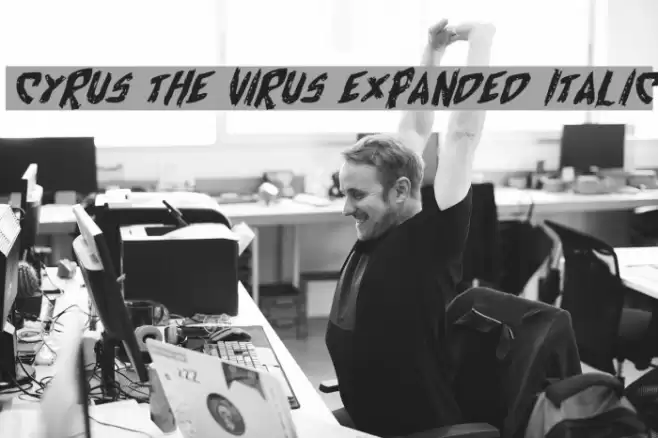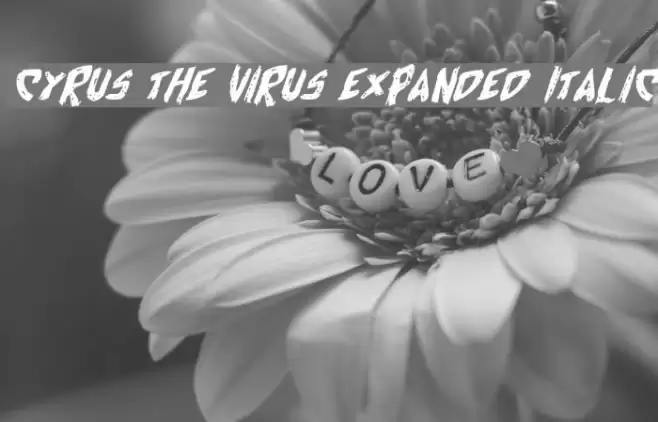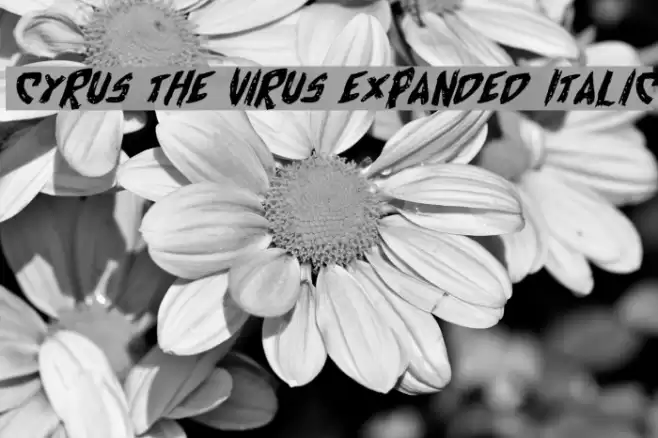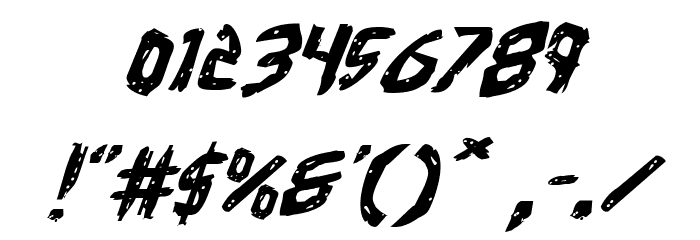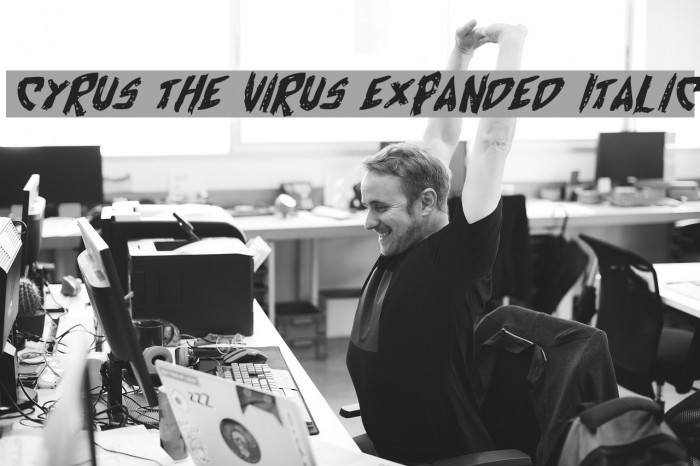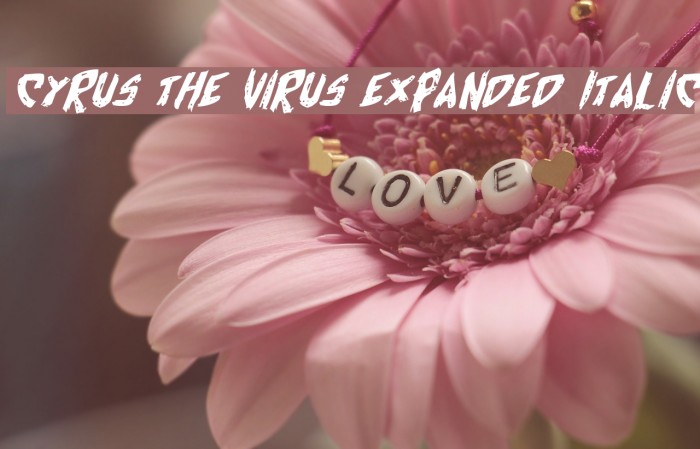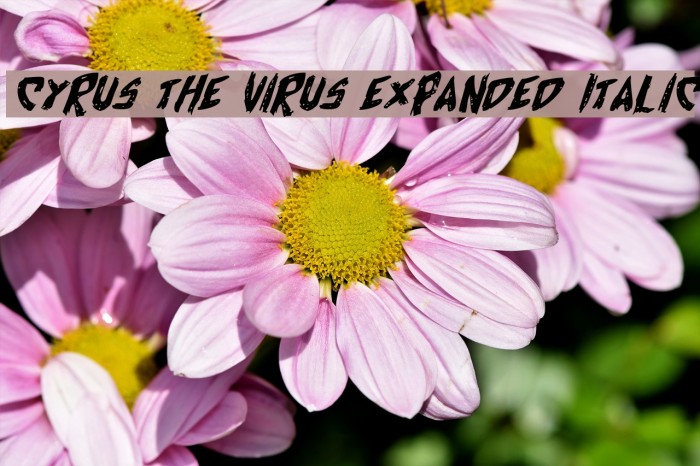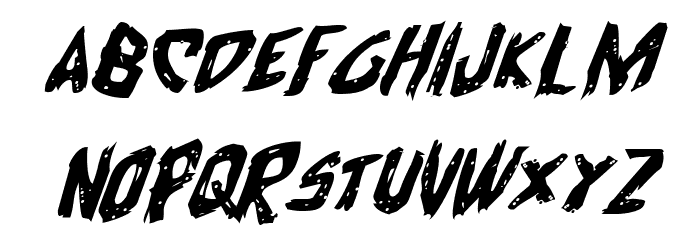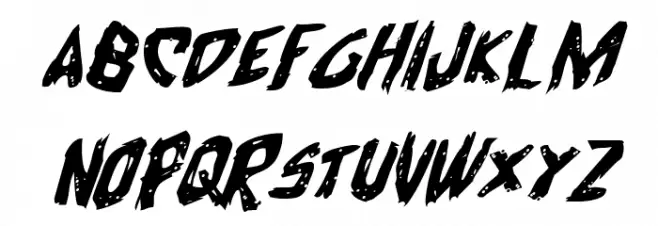
Cyrus the Virus Expanded Italic Font
Cyrus the Virus Expanded Italic Description
This font features a bold and dynamic style with an expanded and italicized appearance. The characters are designed with a rough, textured edge, giving them a distressed and energetic look. The uppercase and lowercase letters maintain a consistent style, with sharp angles and a slightly slanted orientation that enhances the italic effect. The numbers and special characters follow the same design principles, ensuring uniformity across the entire character set. This font's unique aesthetic makes it stand out, capturing attention with its bold strokes and artistic flair.
A bold, textured, expanded italic font with a dynamic and distressed style from Uncategorized fonts.
- Proposed Projects: Ideal for projects that require a bold and edgy look, such as music album covers, posters, branding for extreme sports, or any creative design that seeks to convey energy and movement.
- Overall Style: Modern, Decorative